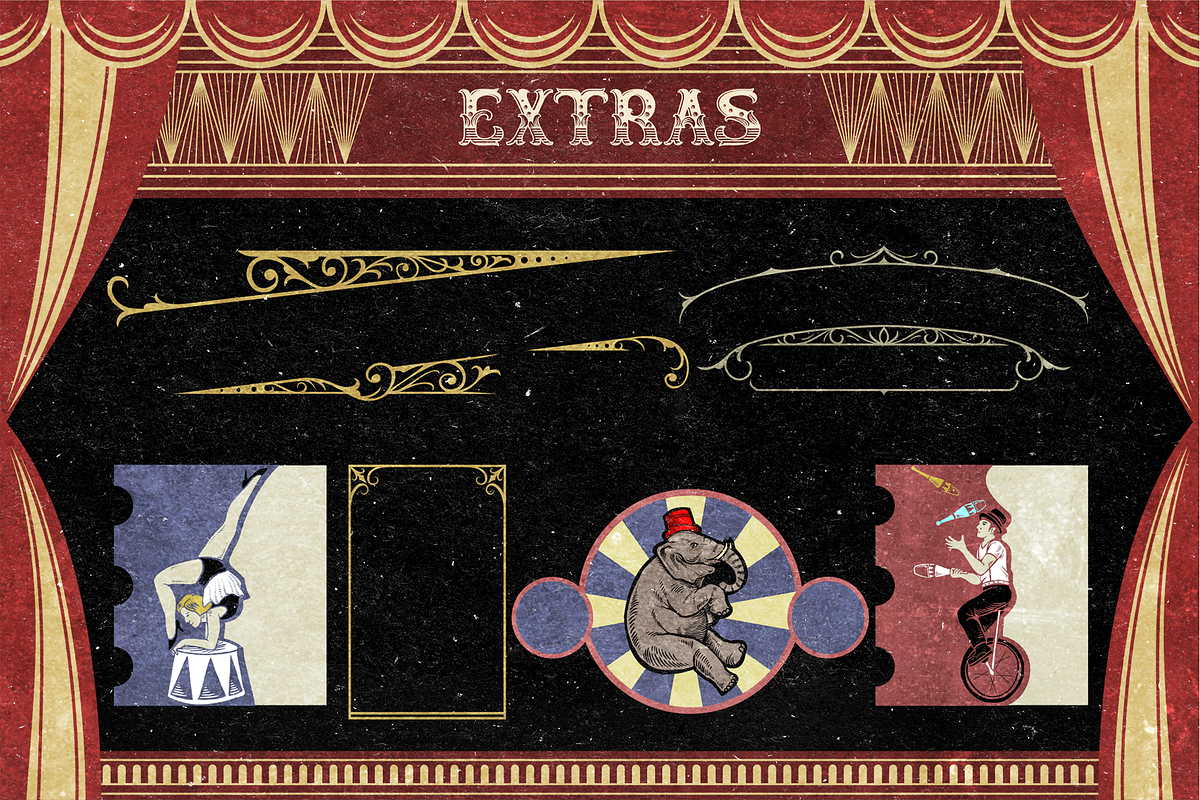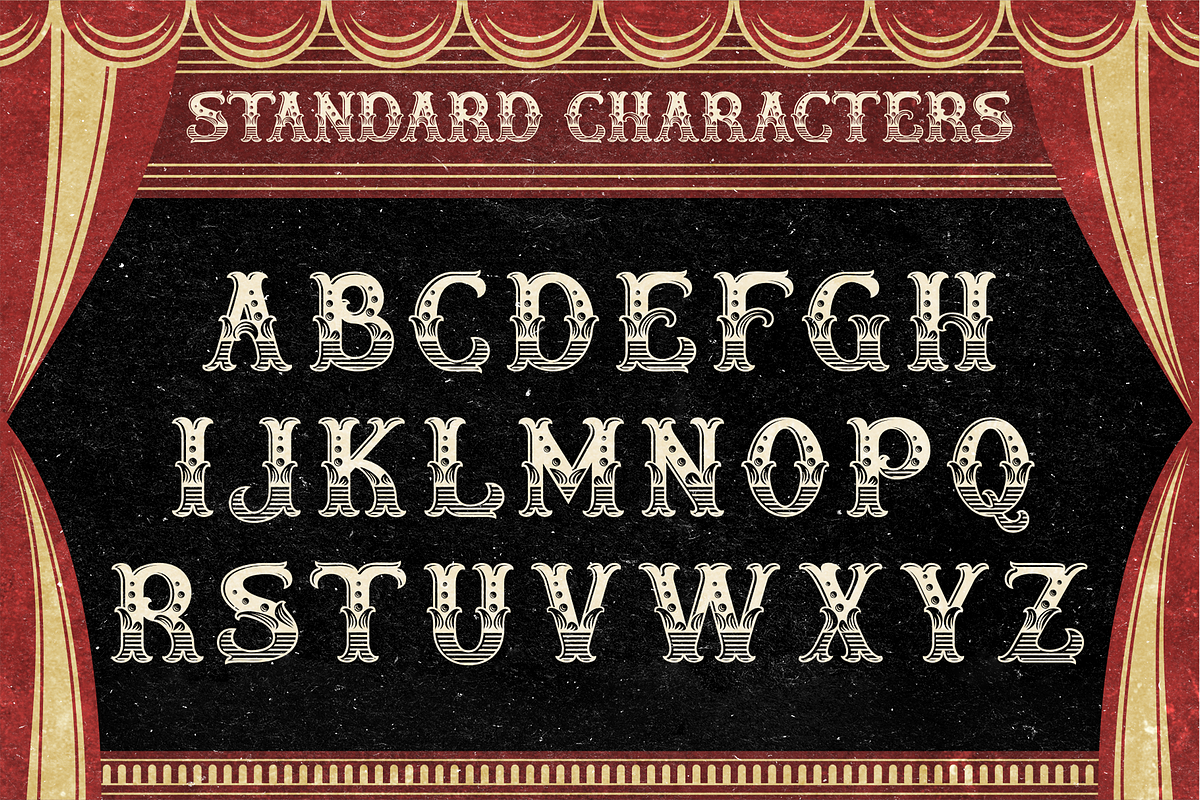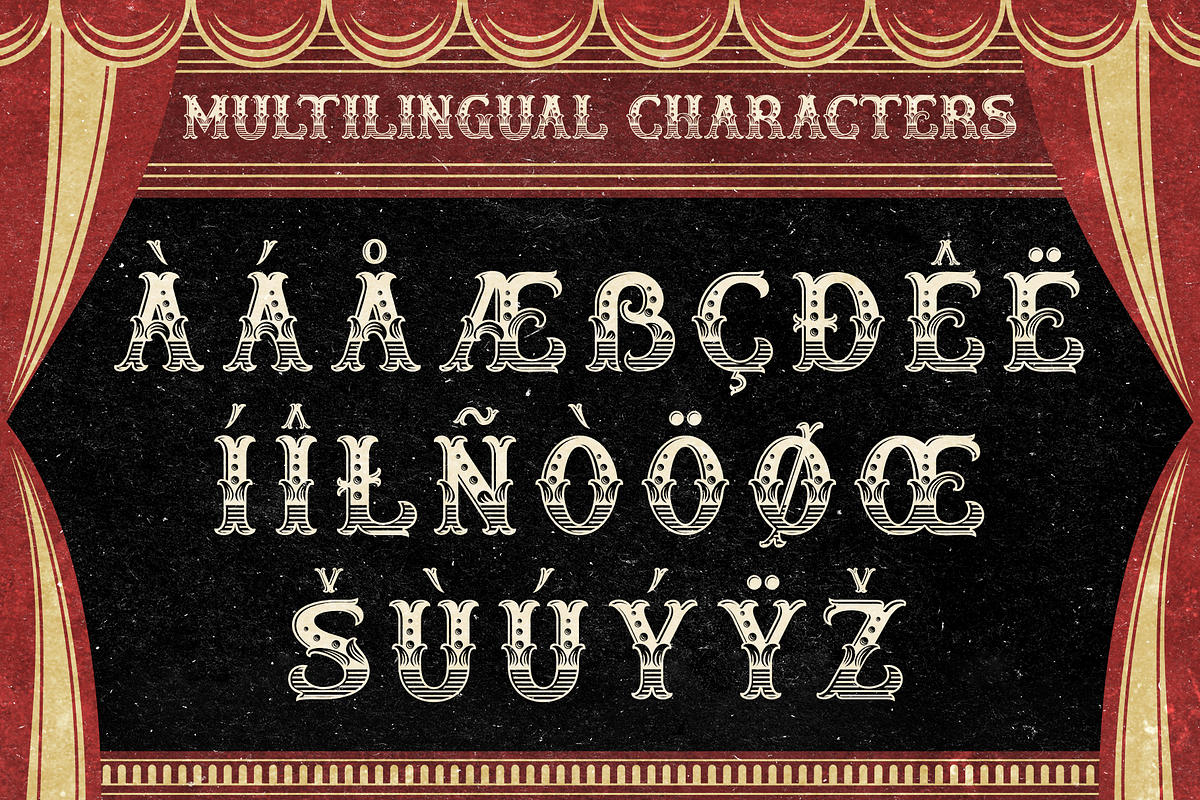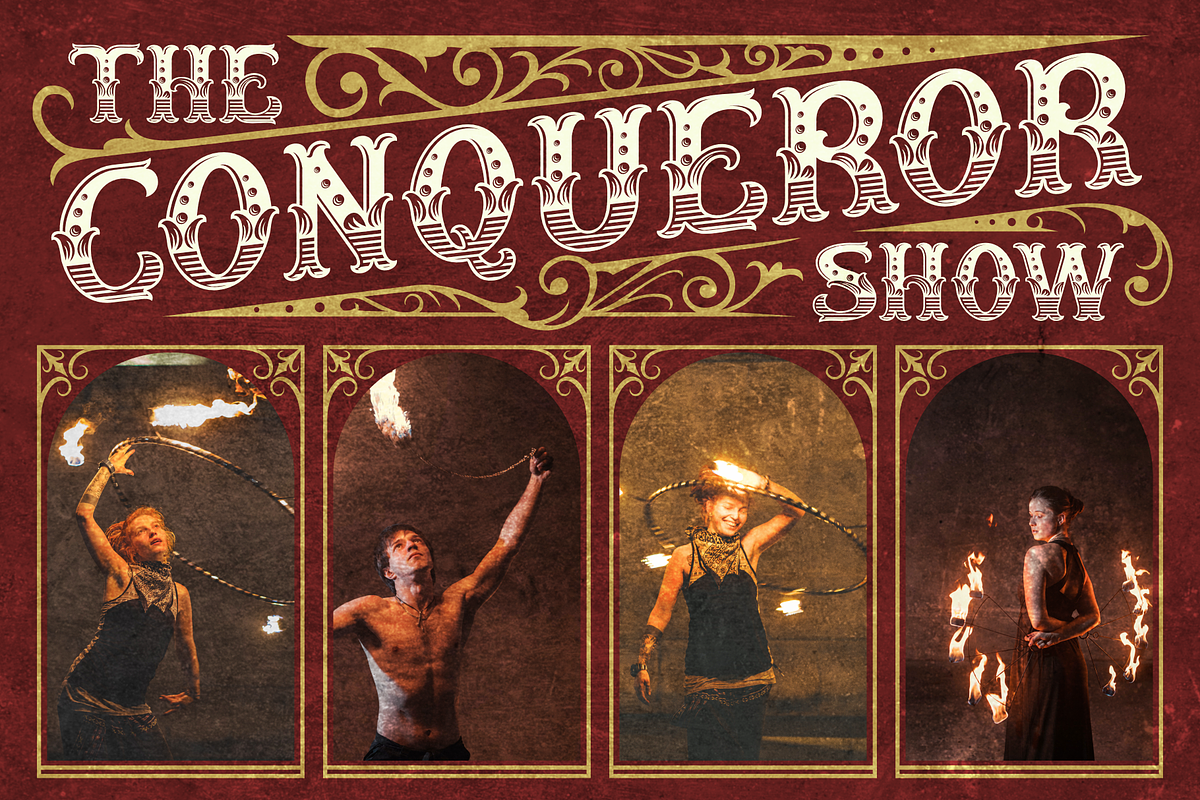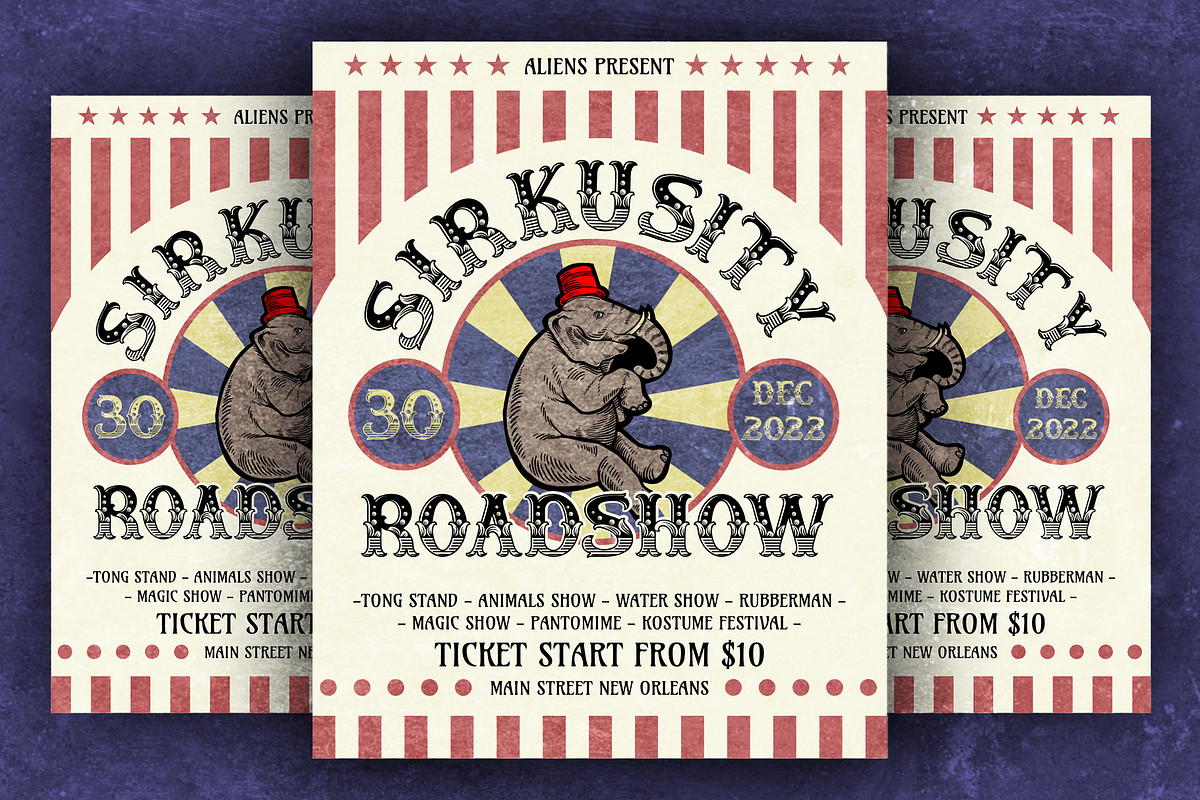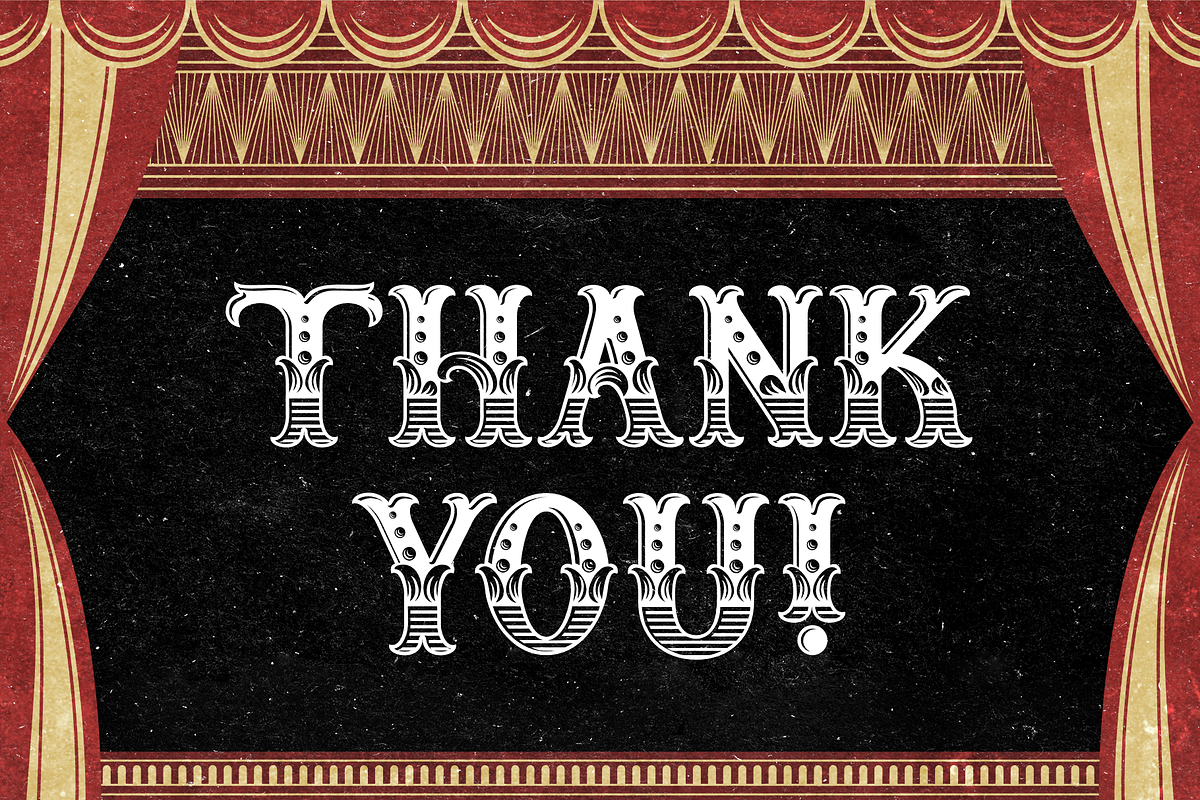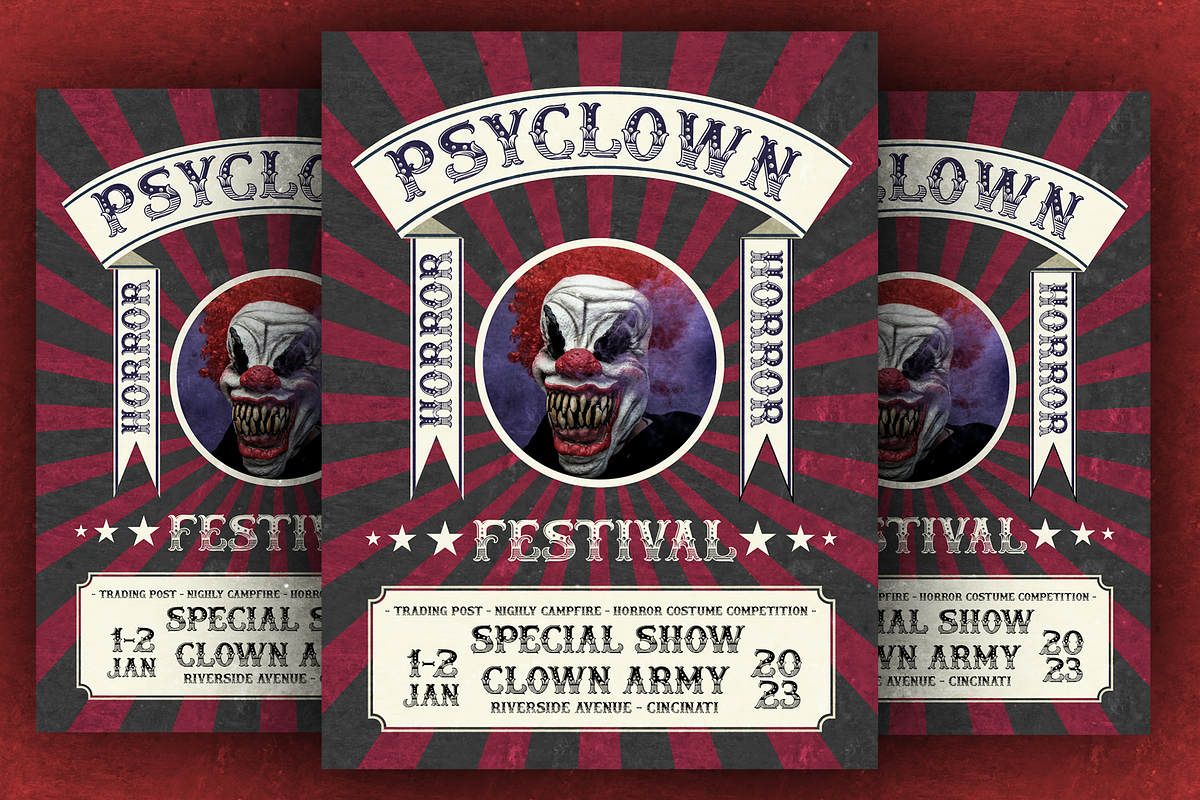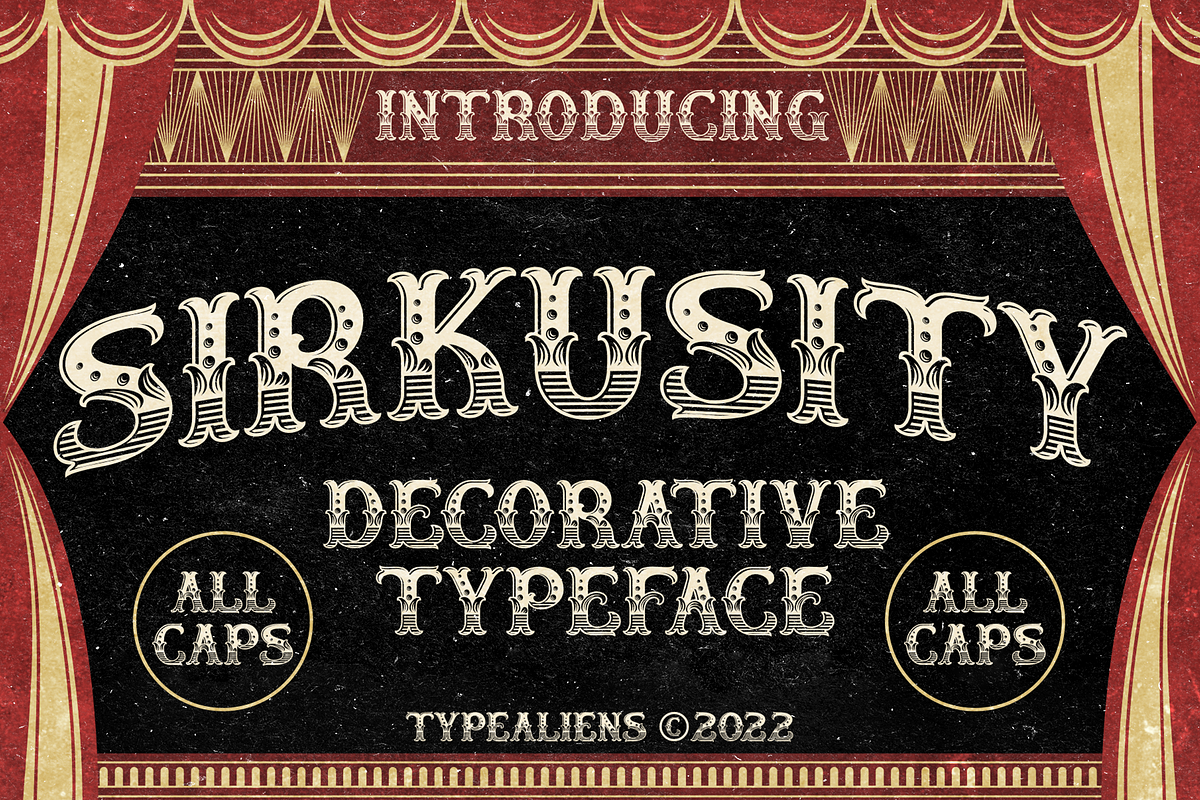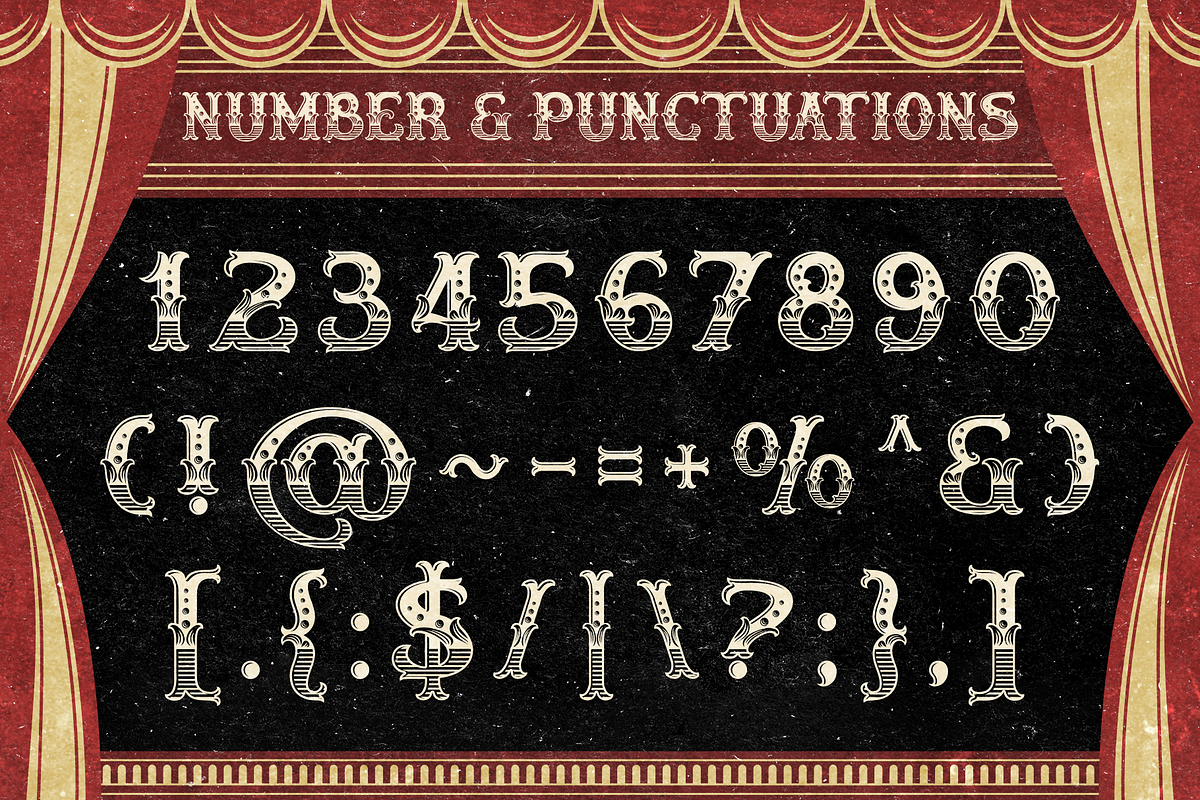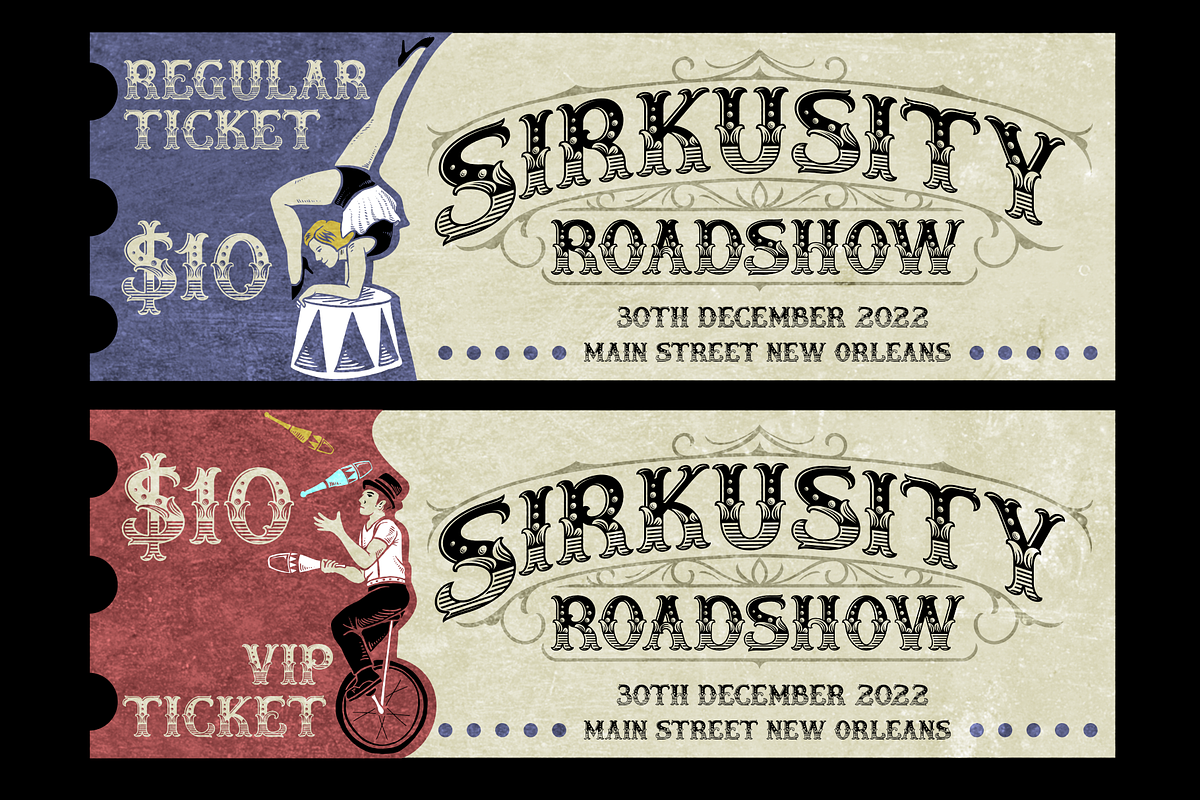
Sirkusity for Poster Design & Events
SIRKUSITY
Sirkusity is a display font that is in the very decorative category with a circus-style font theme, besides that, this font is a vintage font that is very suitable for retro-style circus poster designs. Yes, this font is quite focused on one design style towards the circus, in other words, it is highly segmented. This font is a font that consists of all capital letters.